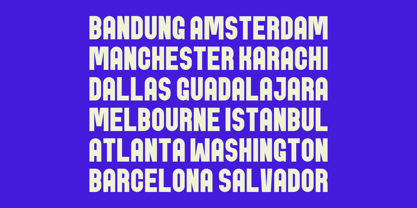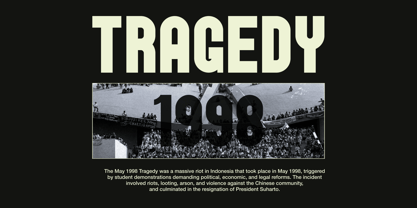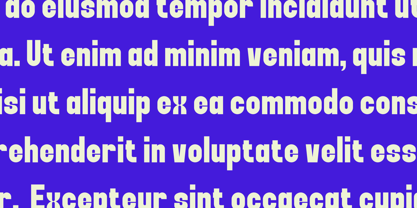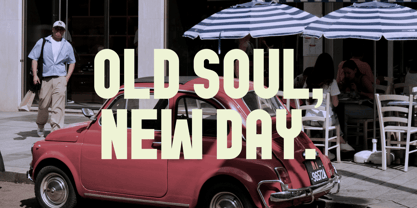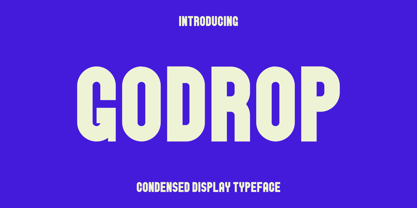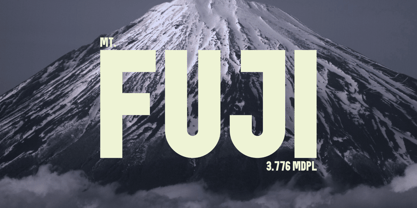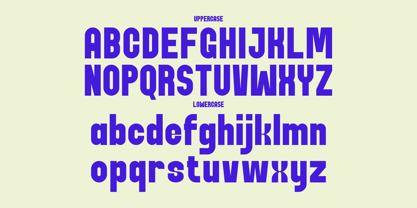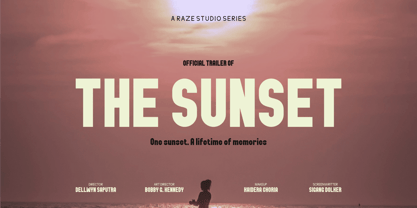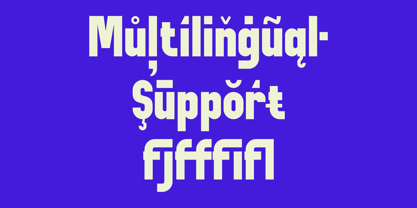
Godrop
by Razetype
The Godrop Font Family was designed by Ahmad Faizal and published by Razetype. Godrop contains 1 styles. More about this family
Godrop is a bold, condensed display typeface characterized by its strong geometric structure and high visual impact. Designed for maximum legibility and presence in large-scale applications, this typeface exhibits a modern and assertive tone, making it ideal for headlines, posters, branding, and editorial design. The uppercase characters are uniform in width and height, offering a harmonious and compact visual rhythm. Meanwhile, the lowercase letters introduce subtle stylistic flourishes, such as the unique curvature of the "k" and the stylized crossbar of the "x," adding distinctive character to the overall typeface. The numerals follow the same bold and condensed aesthetic, ensuring consistency across all typographic elements. With its solid form and minimalist design, Godrop commands attention while maintaining clarity, making it a versatile choice for designers seeking a contemporary and impactful typographic voice.
Designers: Ahmad Faizal
Current Foundry: Razetype